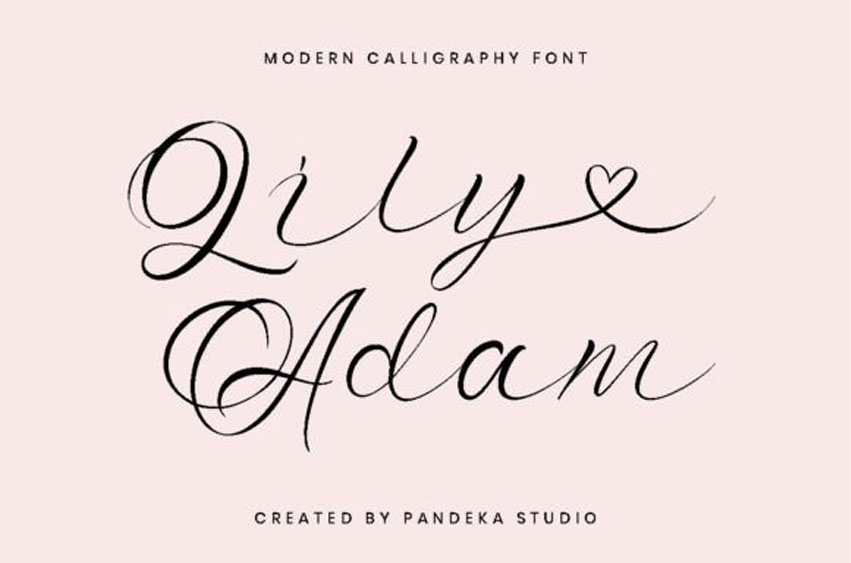
Lily Adam Font is particularly well-suited for wedding invitations, save-the-date cards, and feminine branding.
Lily Adam includes a full set of Uppercase and Lowercase Basic Characters, Numerals, and Punctuation. Also, it contains ligatures and stylistic alternates for lowercase characters to perfectly recreate natural calligraphy.